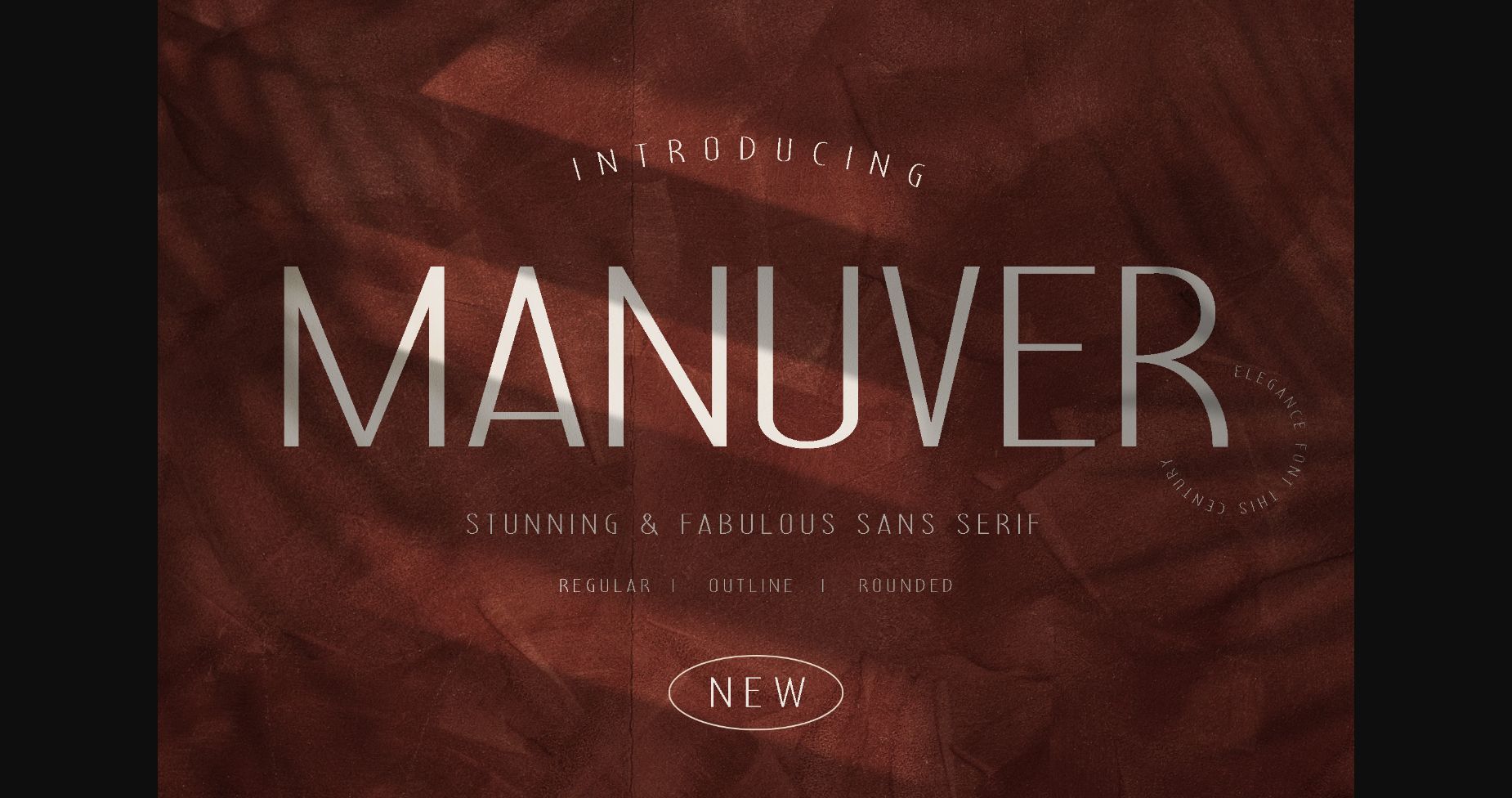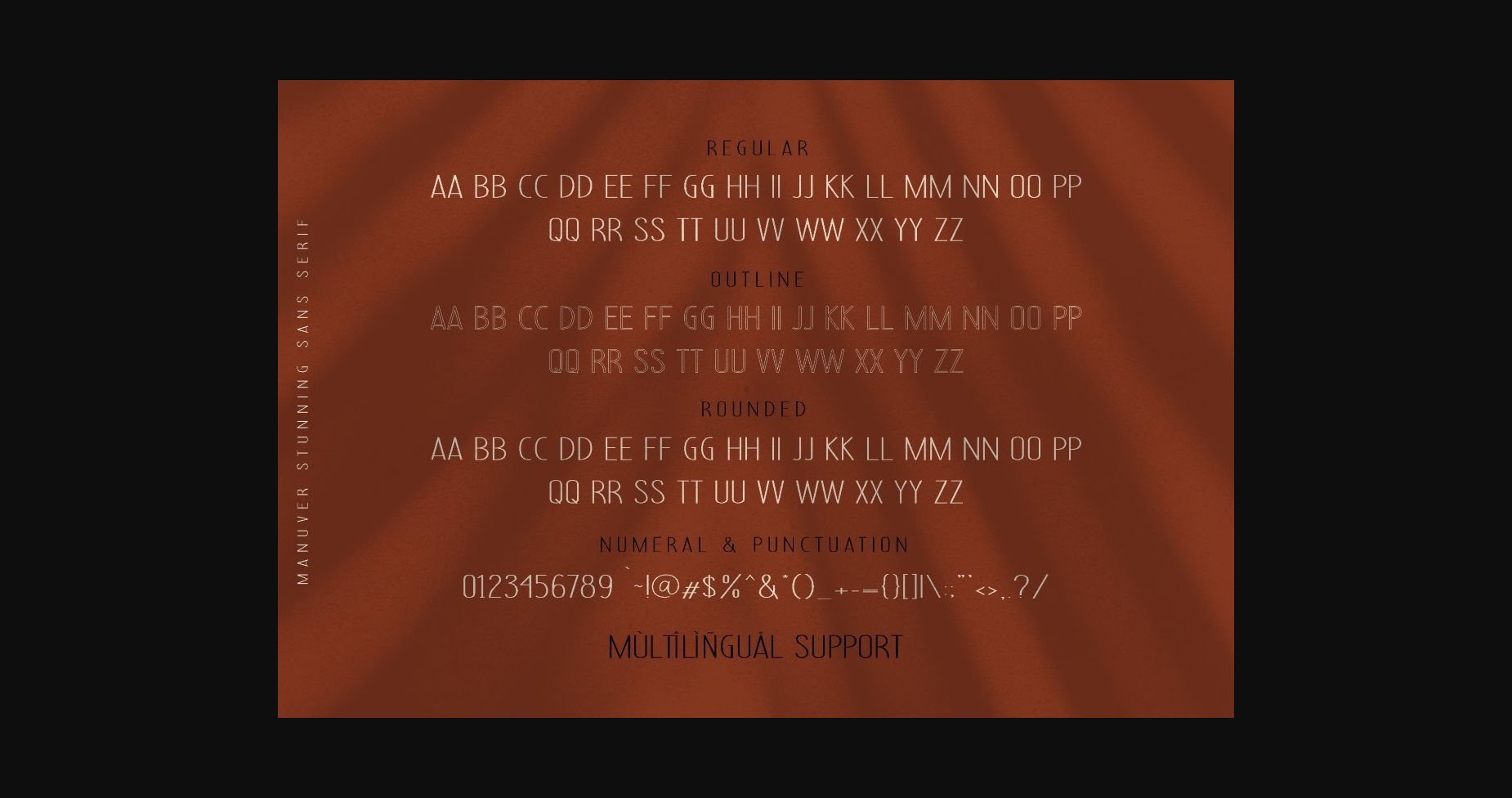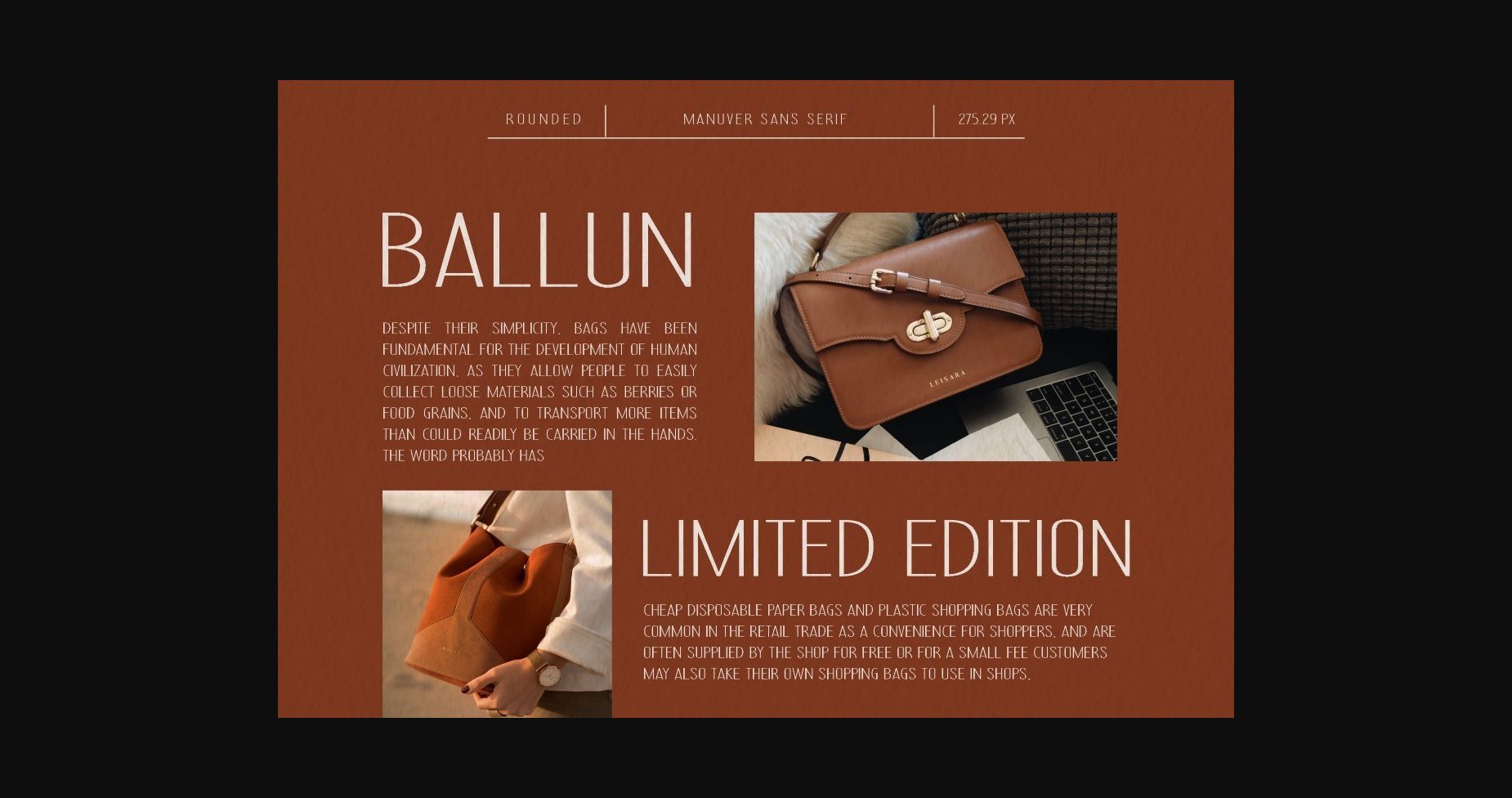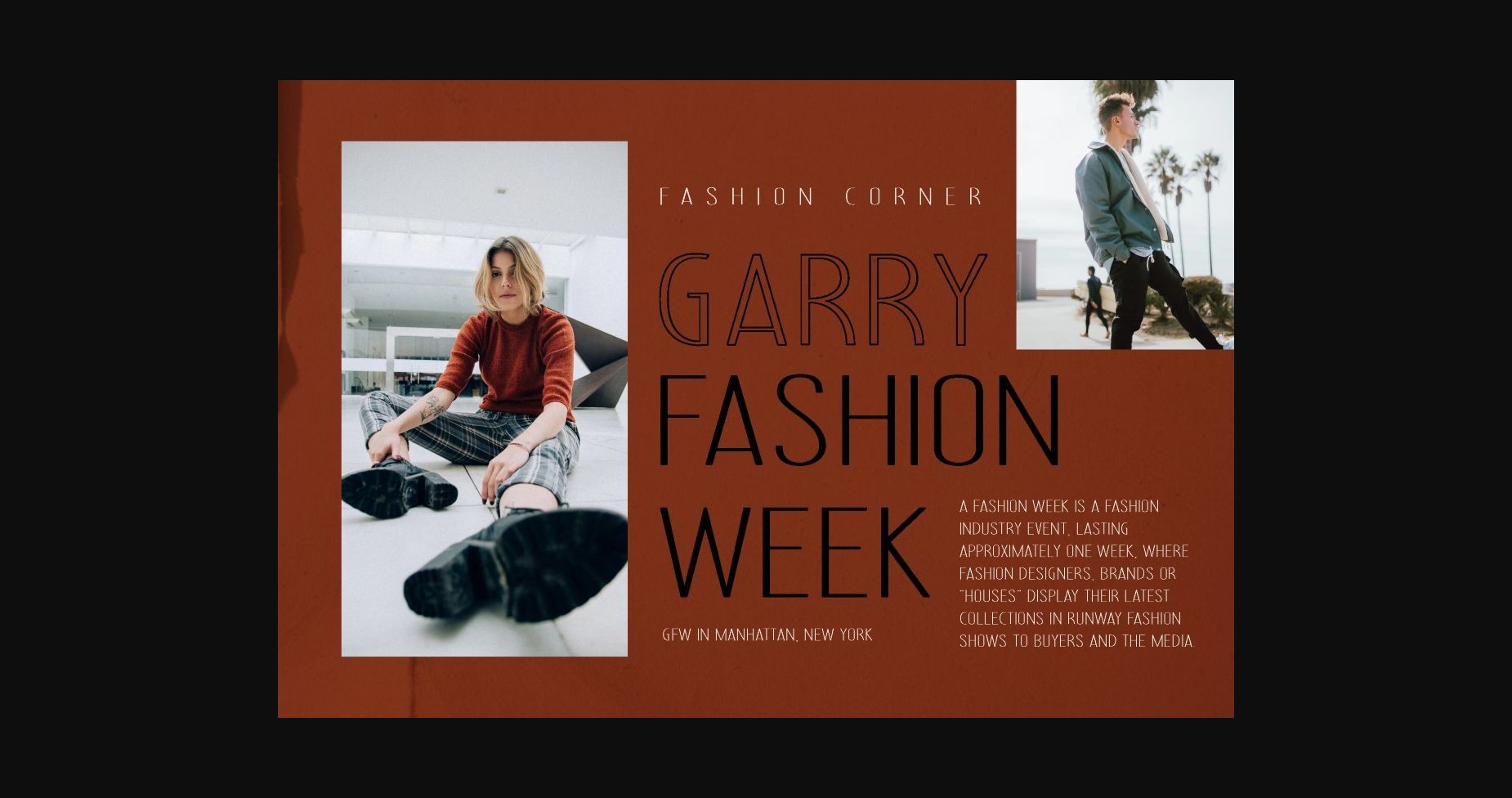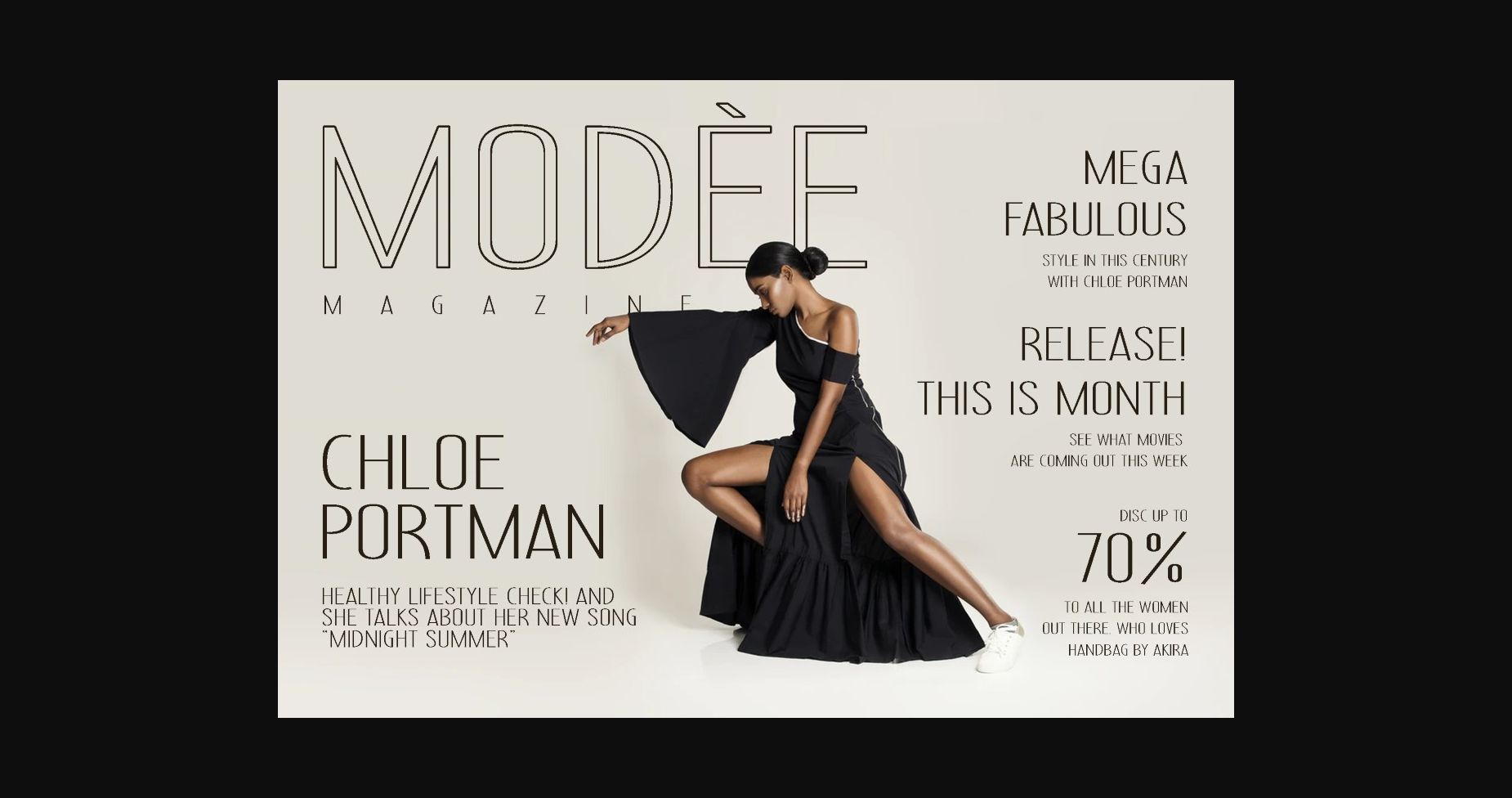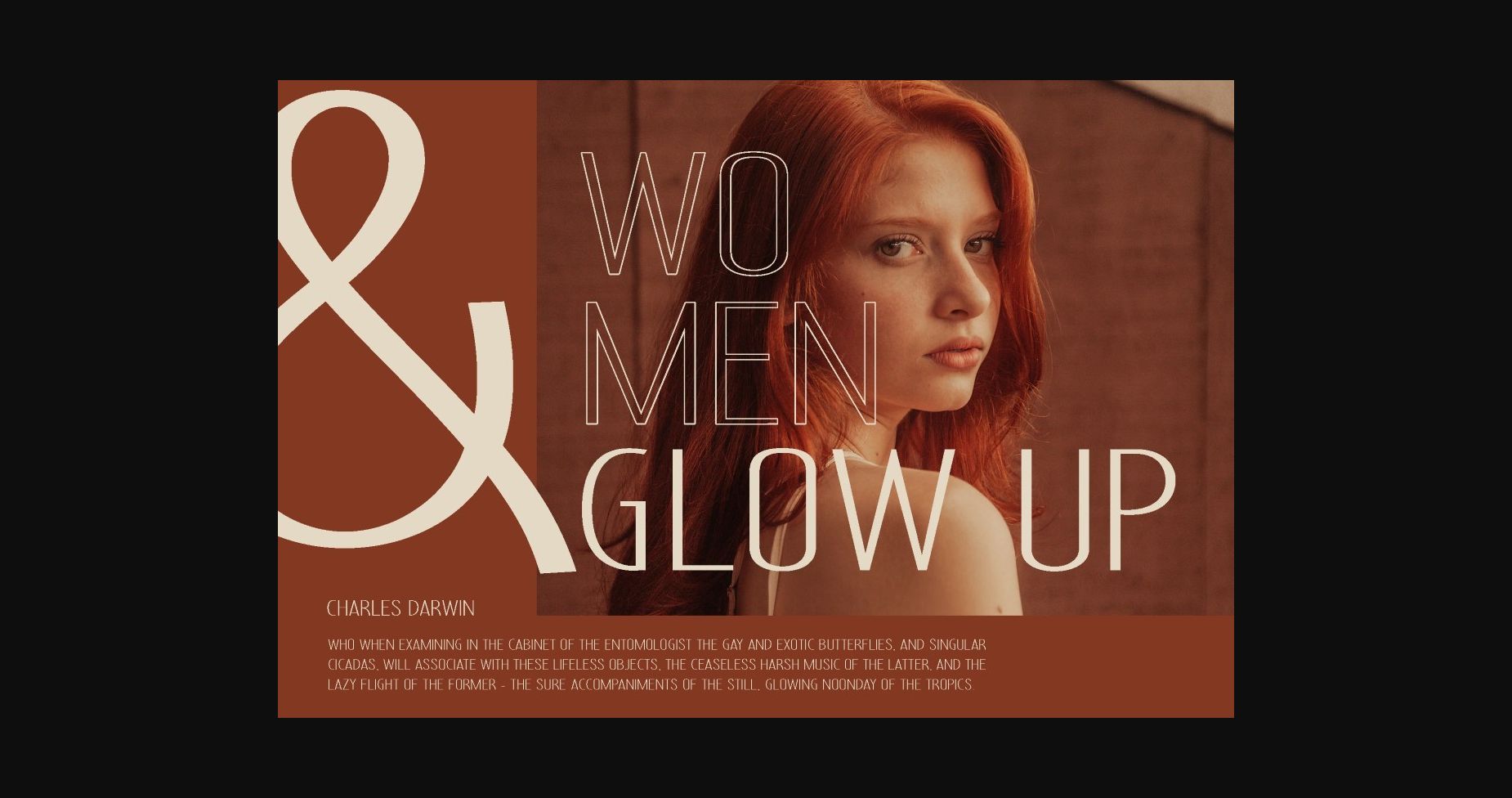
About Manuver Font
Manuver is a minimal and neat sans serif font. It can easily be matched to an incredibly large set of projects, so add it to your creative ideas and notice how it makes them stand out!